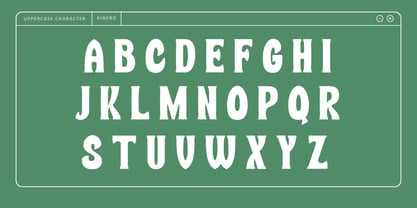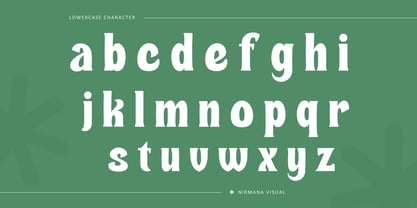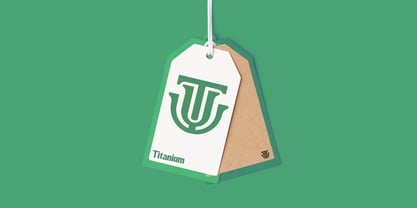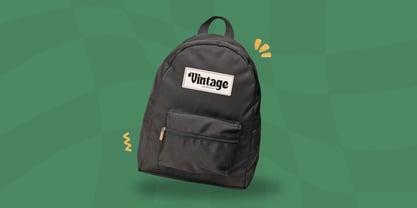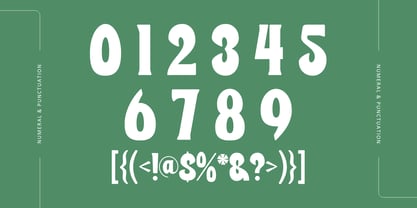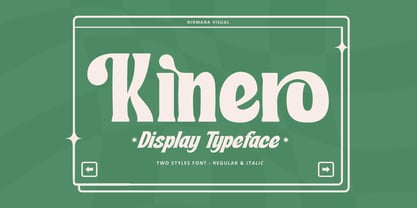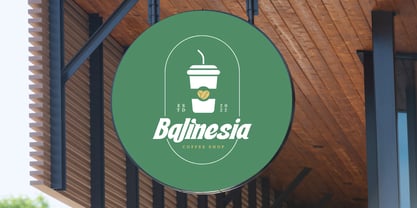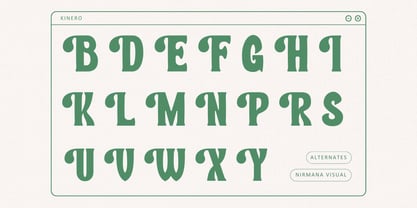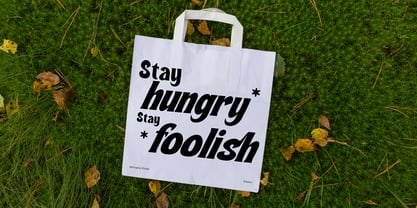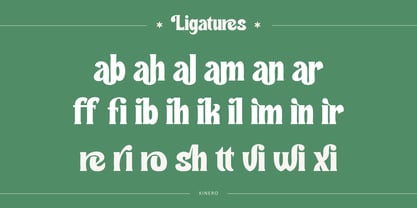
Kinero Retro
La familia tipográfica Kinero Retro fue diseñada por Sigit Dwipa y publicada por Nirmana Visual. Kinero Retro contiene 2 estilos y opciones de paquete familiar. Más información sobre esta familia
Kinero is a retro-inspired display typeface that combines vintage aesthetics with modern versatility. Featuring bold letterforms, intricate curves, and an extensive set of ligatures, Kinero exudes a nostalgic yet contemporary charm. Its striking presence makes it perfect for branding, posters, packaging, and editorial design. The detailed ligatures enhance typography with seamless connections, adding a unique flair to each composition. You get in two styles font Regular and Italic, ideal for designers seeking a timeless yet dynamic visual impact.